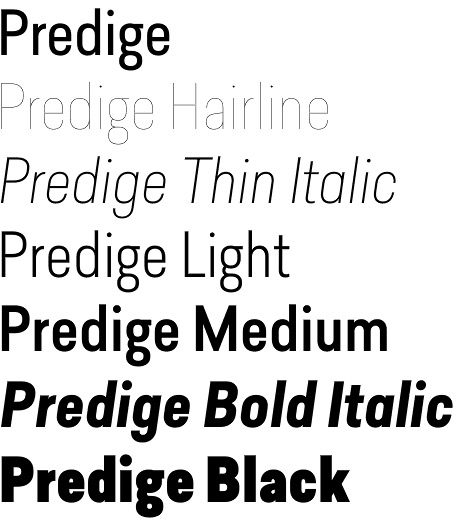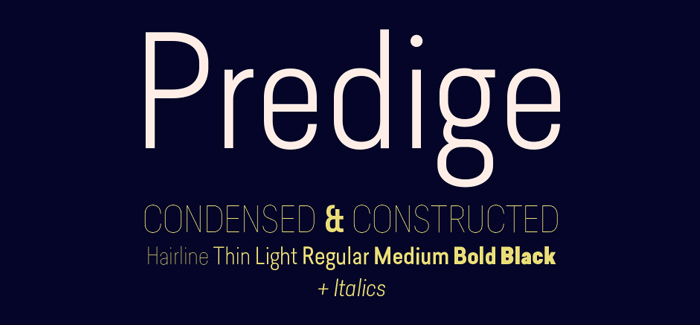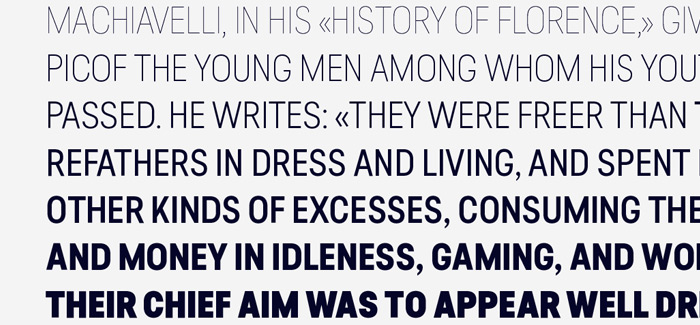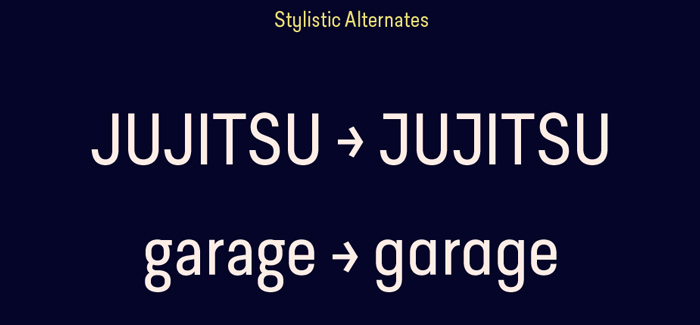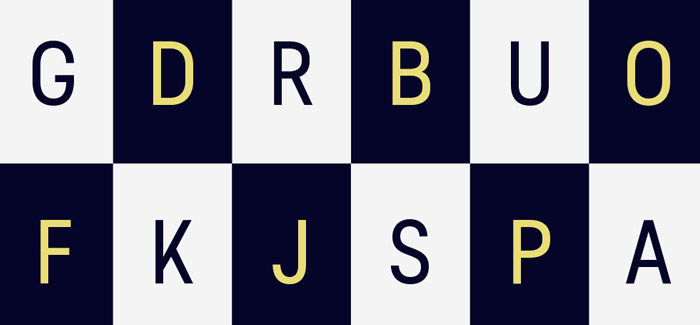
Predige font
Predige font family by the Type Dynamic foundry is yet another classy Sans following the release of the Pieta font and Larsseit font. Predige is a condensed and constructed Sans Serif font family consisting of 7 gradually increasing weights: Hairline, Thin, Light, Regular, Medium, Bold, and Black, plus their respective italics. Each font features OpenType’s Tabular Figures, Old Style Figures, Numerator & Denominator, Fractions, Superscript, Subscript, Scientific Inferiors, Subscript, Ordinals, Ligatures, Stylistic Alternates, etc.
Suitable both for headlines, and for text arrays.